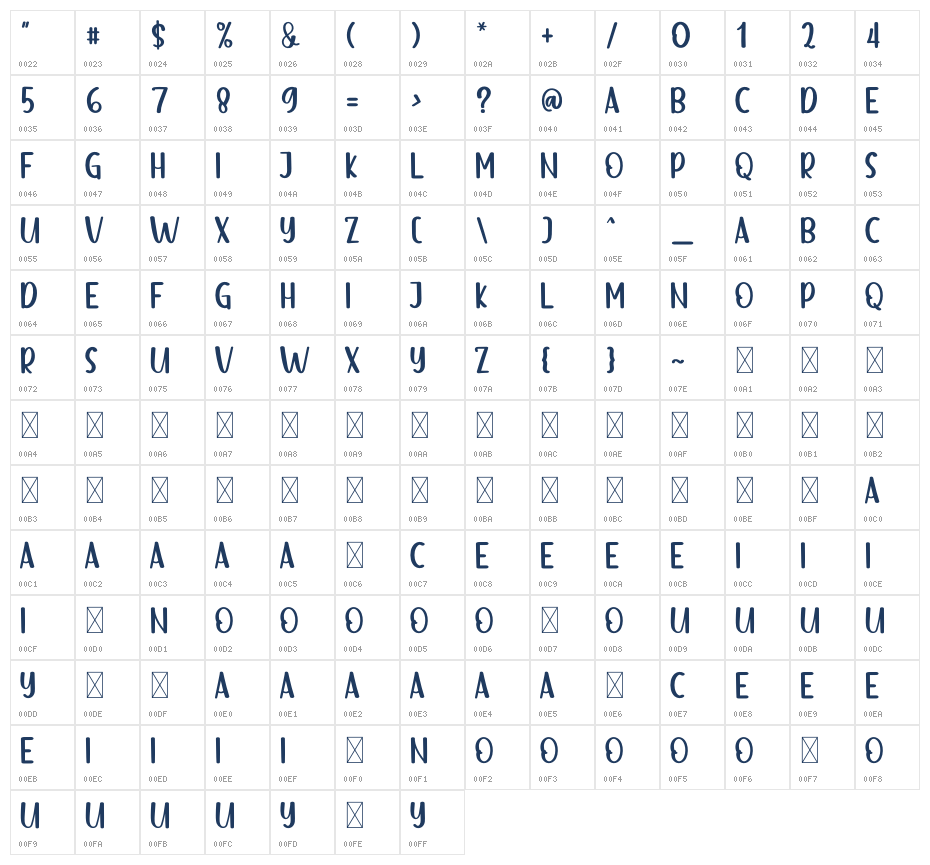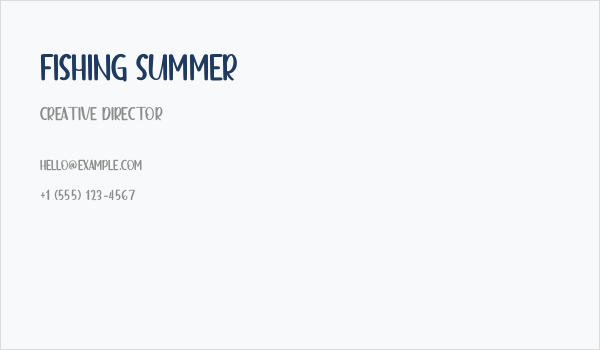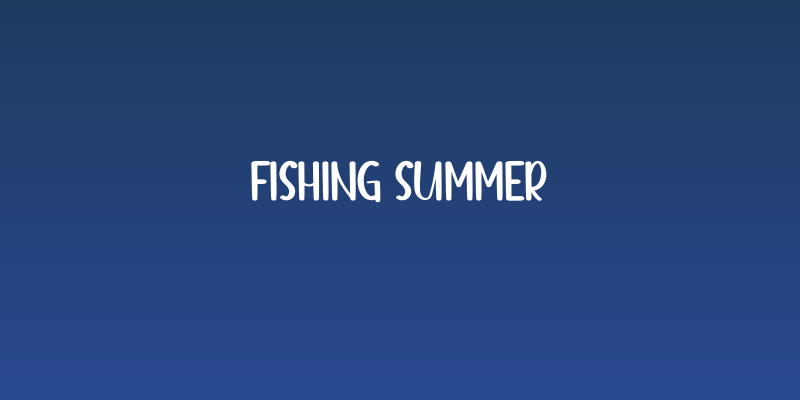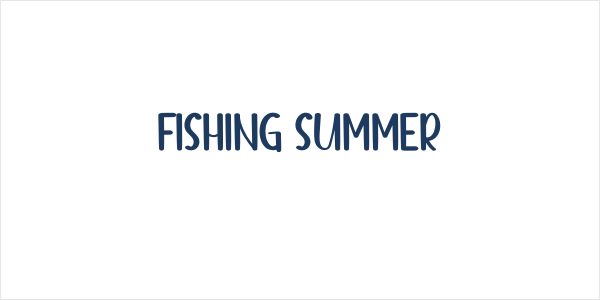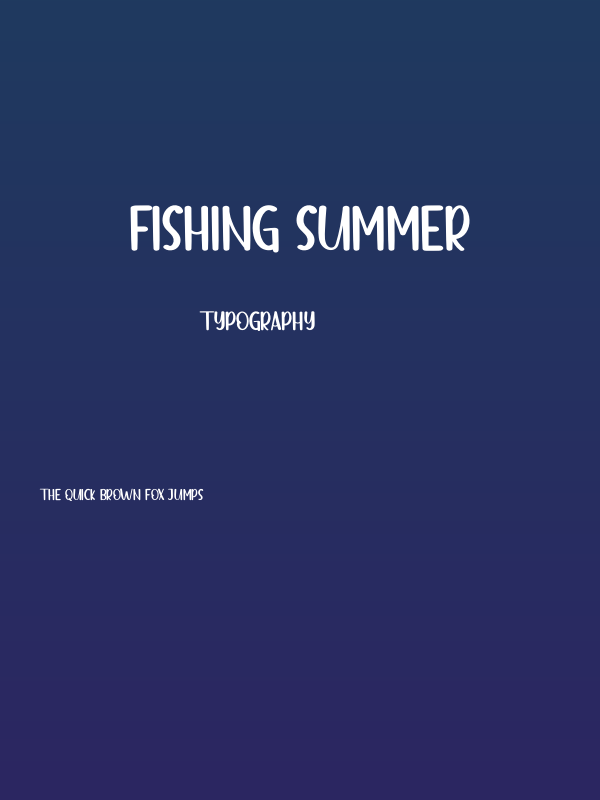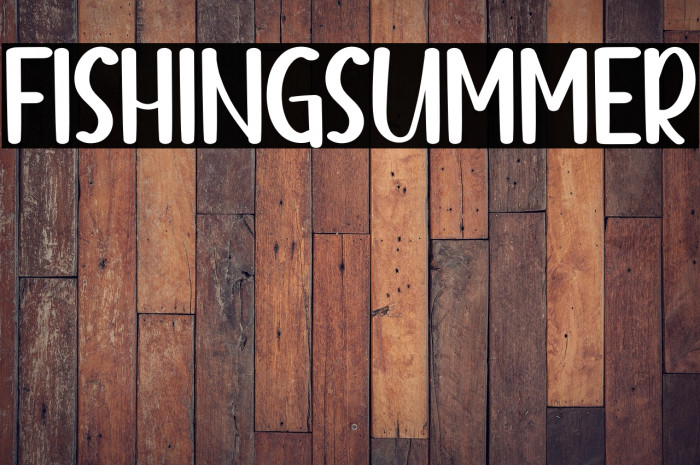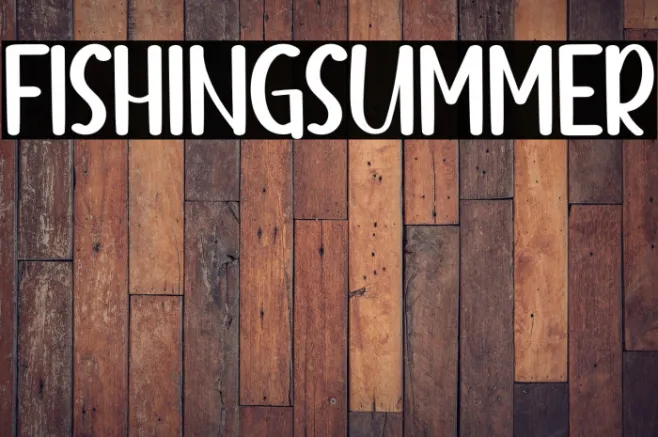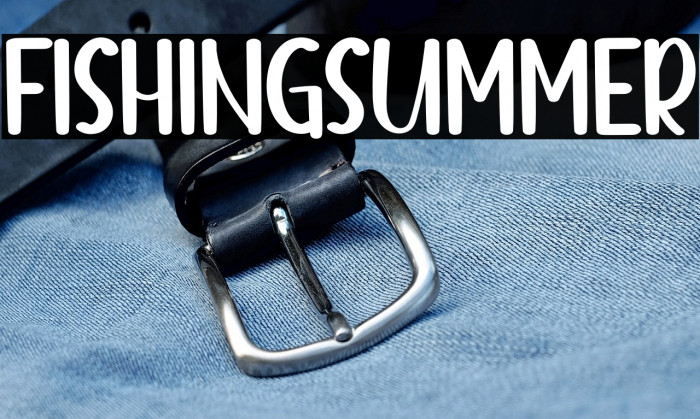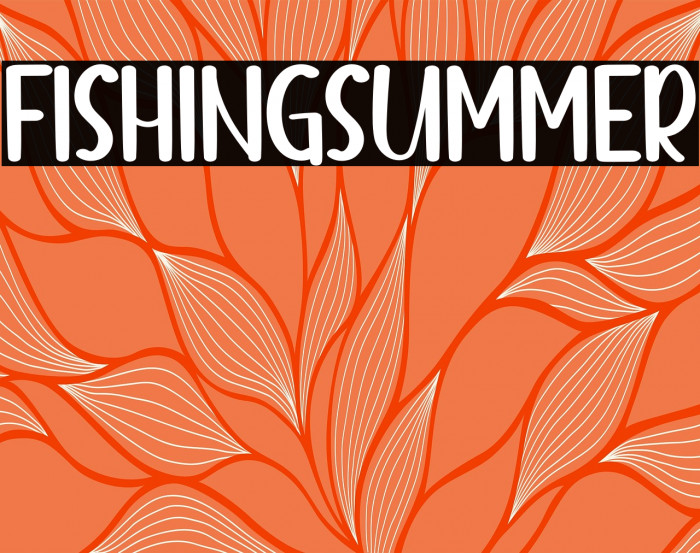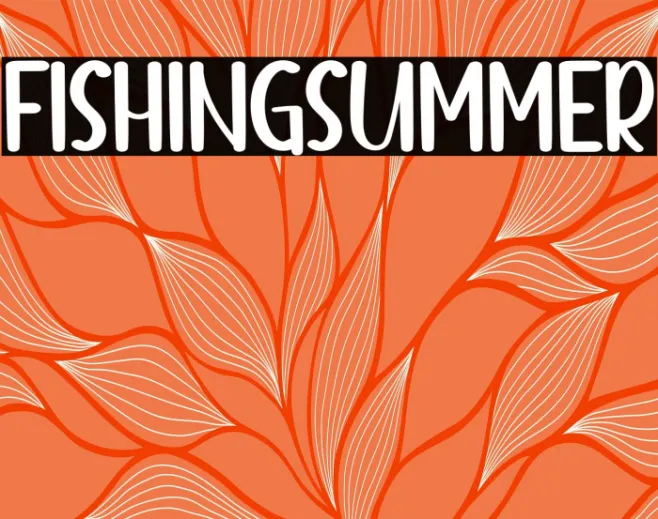
FISHING SUMMER Font
FISHING SUMMER Description
A playful, handwritten style font with irregular, slightly whimsical characters.
| Overall Style | Casual, Playful, Informal |
| Use Case | Headlines, Body text, Logos, Creative projects |